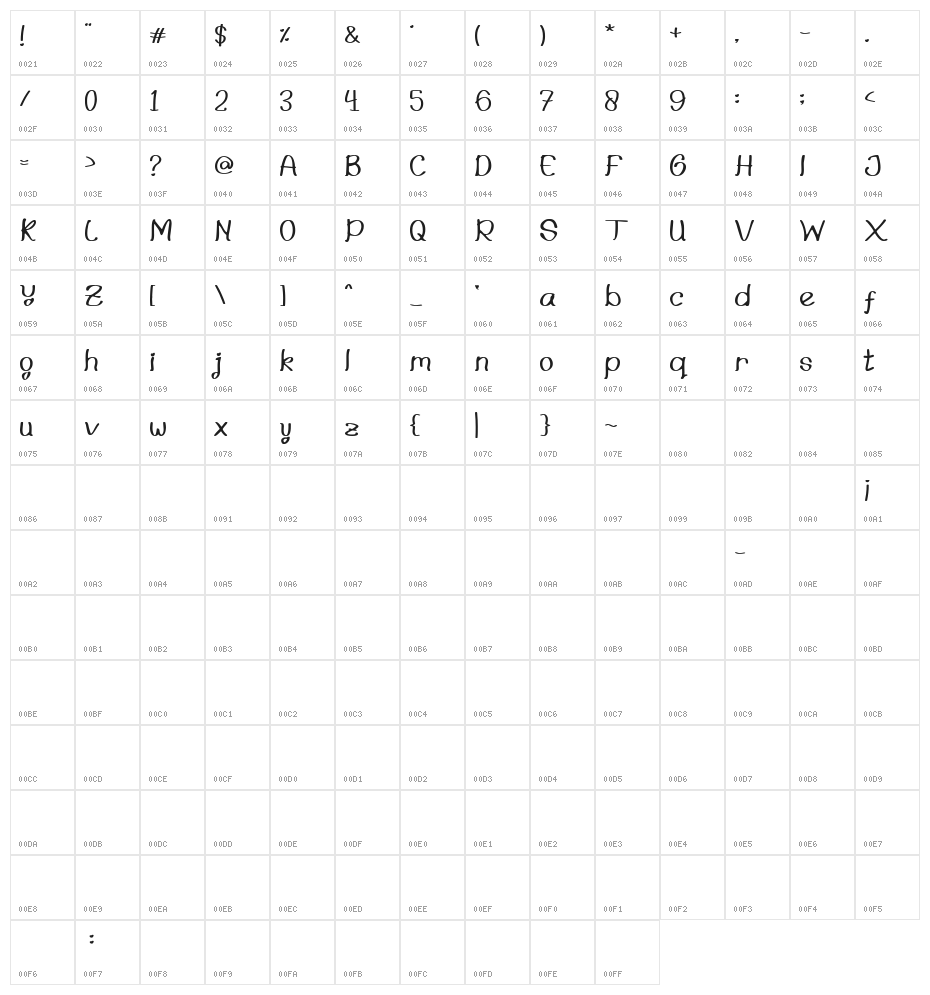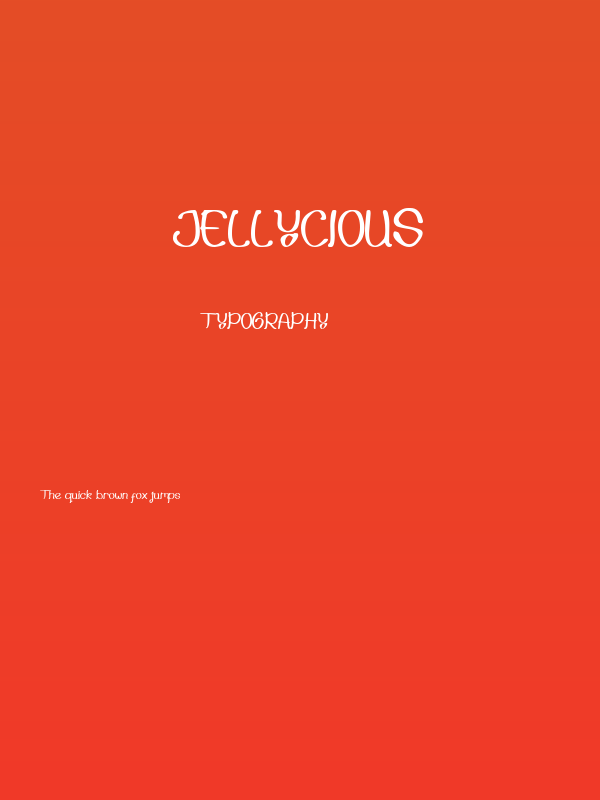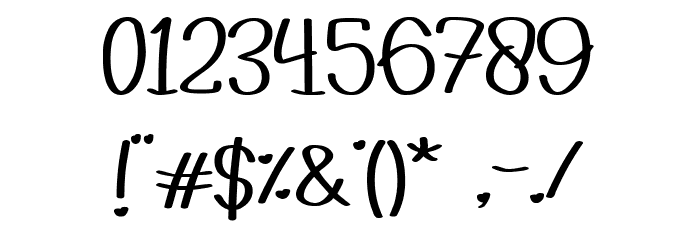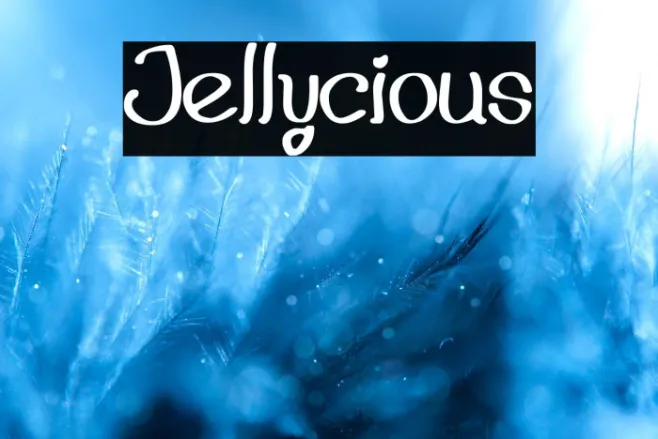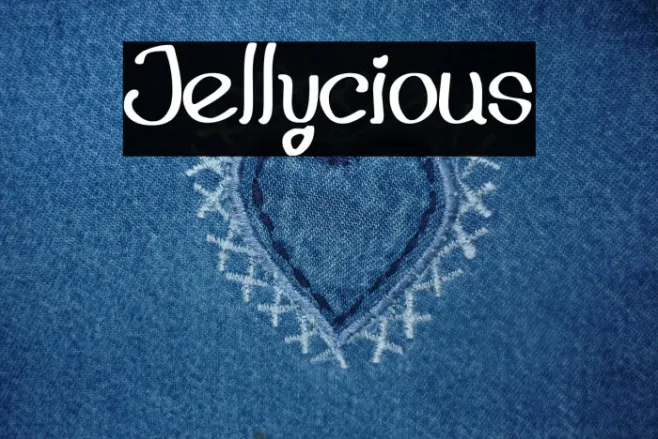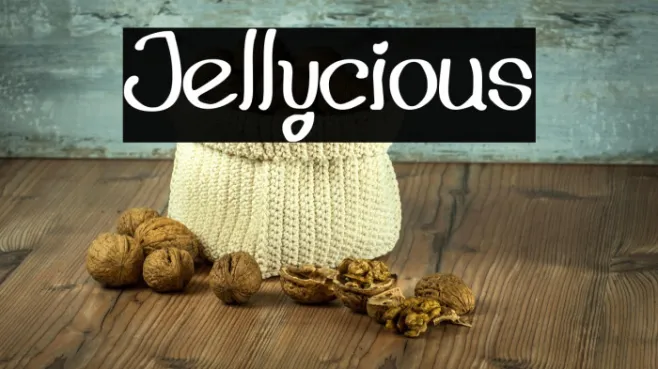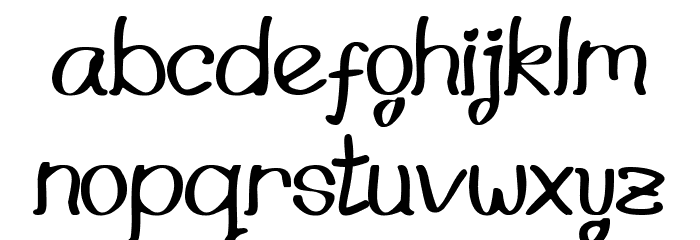
Jellycious Font
Jellycious Description
This playful and whimsical font features a hand-drawn style with a bouncy and fluid appearance. The characters are rounded and slightly irregular, giving them a friendly and approachable feel. The uppercase letters maintain a consistent height, while the lowercase letters exhibit a charming variety in their loops and curves. Numbers and special characters are designed to match the overall playful aesthetic, making this font ideal for creative and informal projects. The strokes are moderately thick, providing good readability while maintaining a casual vibe.
| Use Case | Logos, Headlines, Informal Text |
| Proposed Projects | Ideal for children's books, greeting cards, playful branding, and informal invitations. |